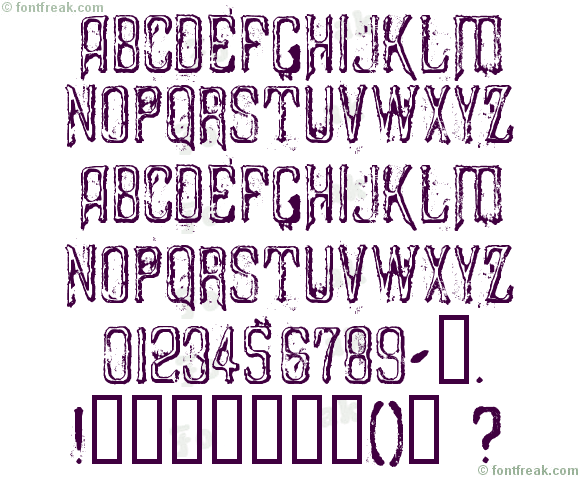
Liszthius-Alkimista
Liszthius-Alkimista is a captivating decorative font designed by Bumbayo Font Fabrik, classified as a display typeface. This unique font features an intricate, artistic style that combines gothic influences with a modern flair. The strokes are varied in weight, creating an eye-catching contrast that draws attention. The overall design exudes a sense of mystique, enhanced by decorative elements that resemble alchemical symbols and otherworldly motifs. The spacing between characters is thoughtfully balanced, ensuring readability while maintaining the font’s artistic character.
This distinct style makes Liszthius-Alkimista an excellent choice for a variety of creative projects. It shines particularly in applications such as movie posters, where its dramatic flair can set the tone for thrilling narratives. Wedding invitations also benefit from its elegant yet bold appearance, adding a touch of sophistication to special events. Additionally, restaurant menus can embrace its unique character to convey a themed dining experience, particularly for establishments with an avant-garde or fantasy-inspired concept. Graphic designers and content creators seeking to make a statement will find this font invaluable in their toolkit.
What sets the Liszthius-Alkimista font apart is its ability to blend artistic expression with functionality. It invites viewers into a world of creativity, perfect for projects that require a standout typographic statement. For those looking to elevate their designs, the Liszthius-Alkimista font free download is an opportunity not to be missed.